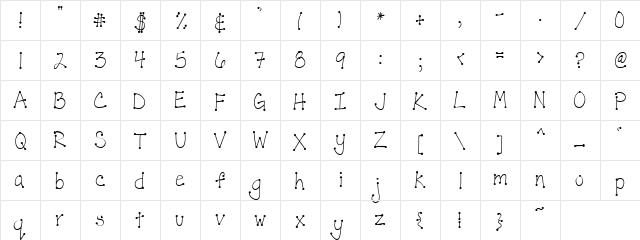
Accent Joleen Regular
Design Context for Accent Joleen Typeface
Accent Joleen is a composed and adaptable typeface that performs quietly and consistently across a wide range of design contexts.